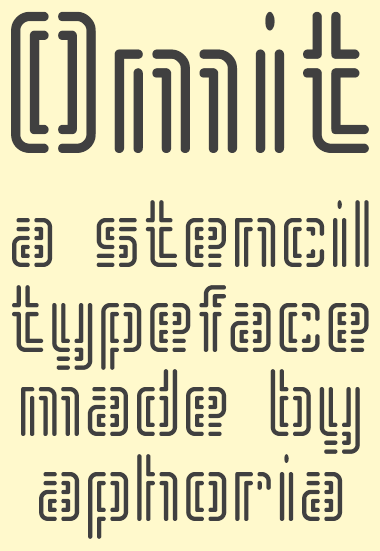
Omit
aphoria
Stencil
look good in big size. original nice work
Good job! 10/10. (Wow, what a level in this challenge!)
Looks good in
all
sizes :) 10/10
Excellent, stencil meets neon. 10/10
Amazing work! My favorite fonts of all of yours. Keep up the good work and maybe teach me some tricks for this website!
wow keep up good work!!!!!